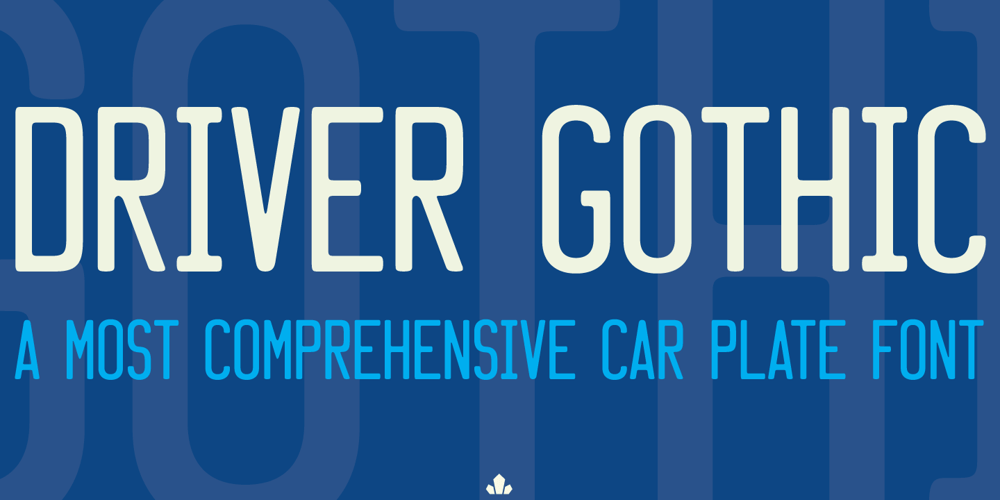
Driver Gothic
Driver Gothic font
Driver Gothic Font Family was designed by Patrick Griffin and published by Canada Type. Driver Gothic contains 1 styles and family package options. Driver Gothic is based on the typeface used for Ontario license plates. Although unique among Canadian provincial license plates, this face is very similar to, if not outright identical with, the face used on car plates in 22 American states: Arizona, Connecticut, Florida, Illinois, Iowa, Kentucky, Louisiana, Maine, Michigan, Mississippi, Missouri, Montana, Nebraska, Nevada, New Hampshire, New Mexico, Ohio, Oklahoma, Vermont, Washington, and West Virginia. Driver Gothic is available in all popular font formats, and is comprised of a very extended character set (over 750 characters) covering a wide range of languages, including Central and Eastern European languages, Greek, Cyrillic, Esperanto, Turkish, Baltic and Celtic/Welsh. Driver Gothic Pro, the OpenType version, contains class-based kerning and push-button stylistic alternates for use with apps that support advanced typography. Buckle up!